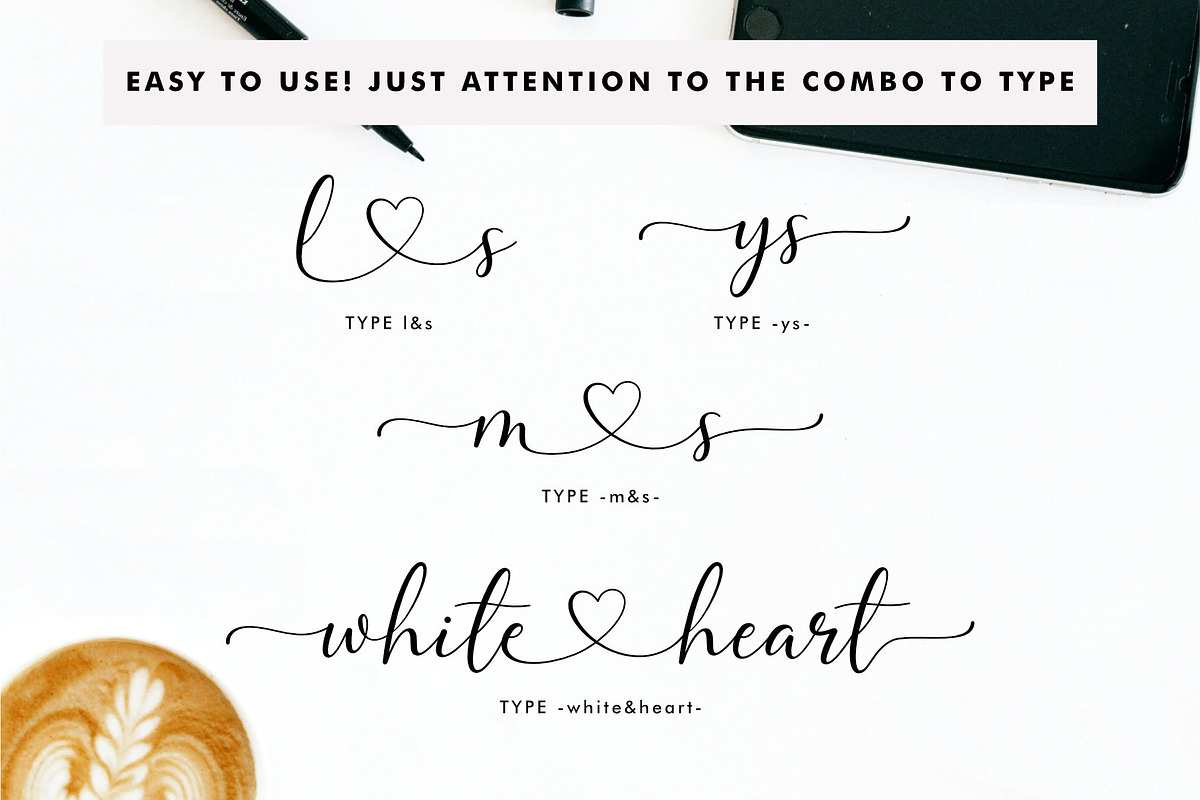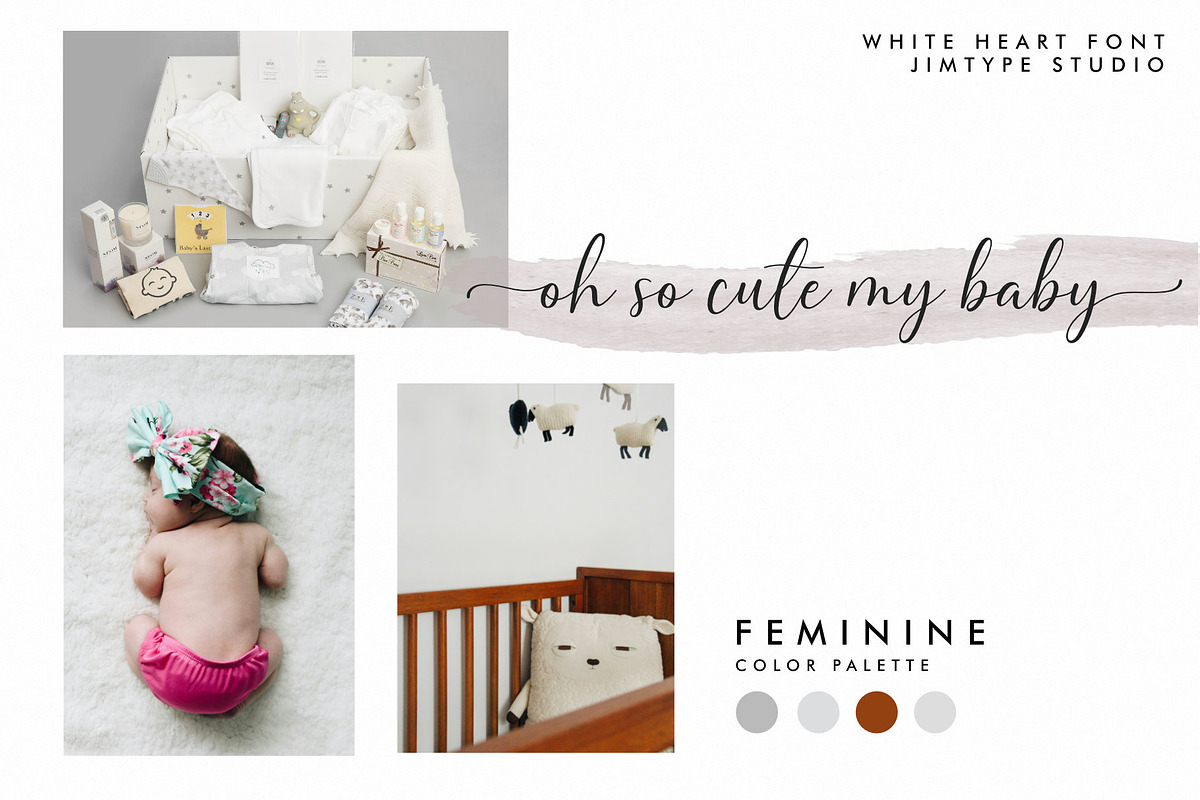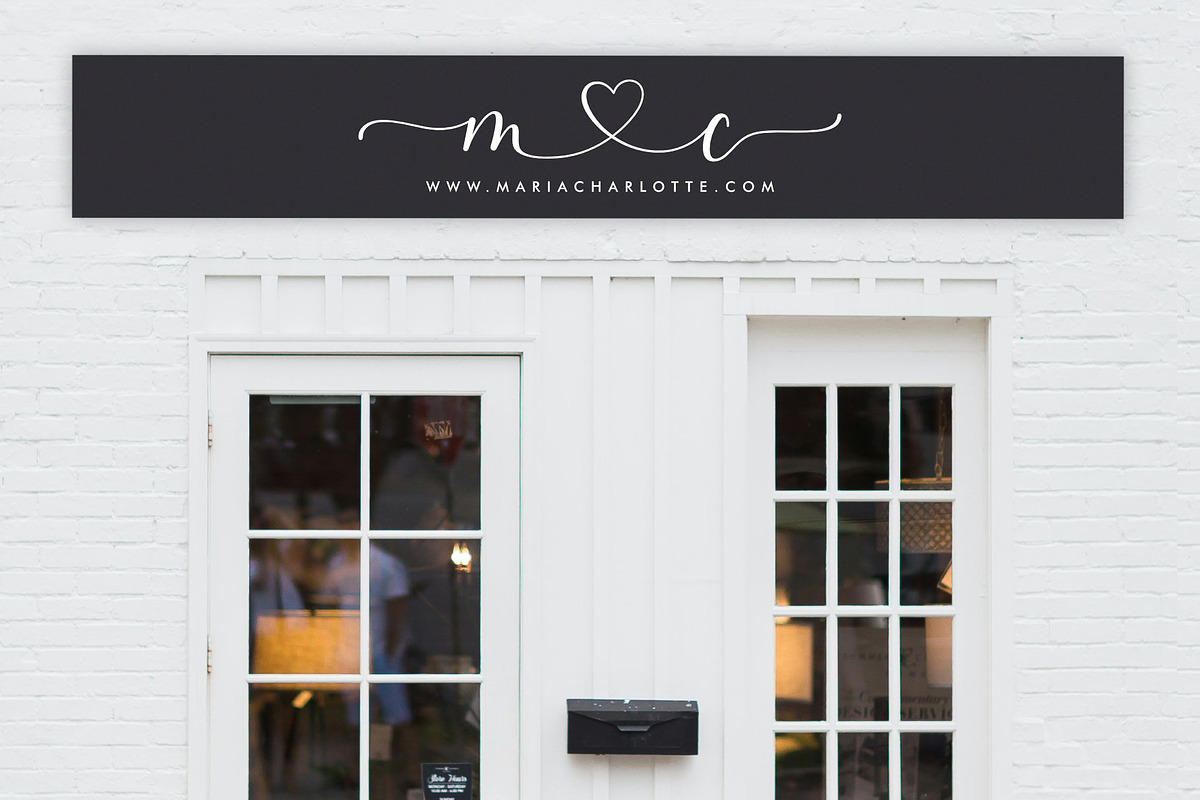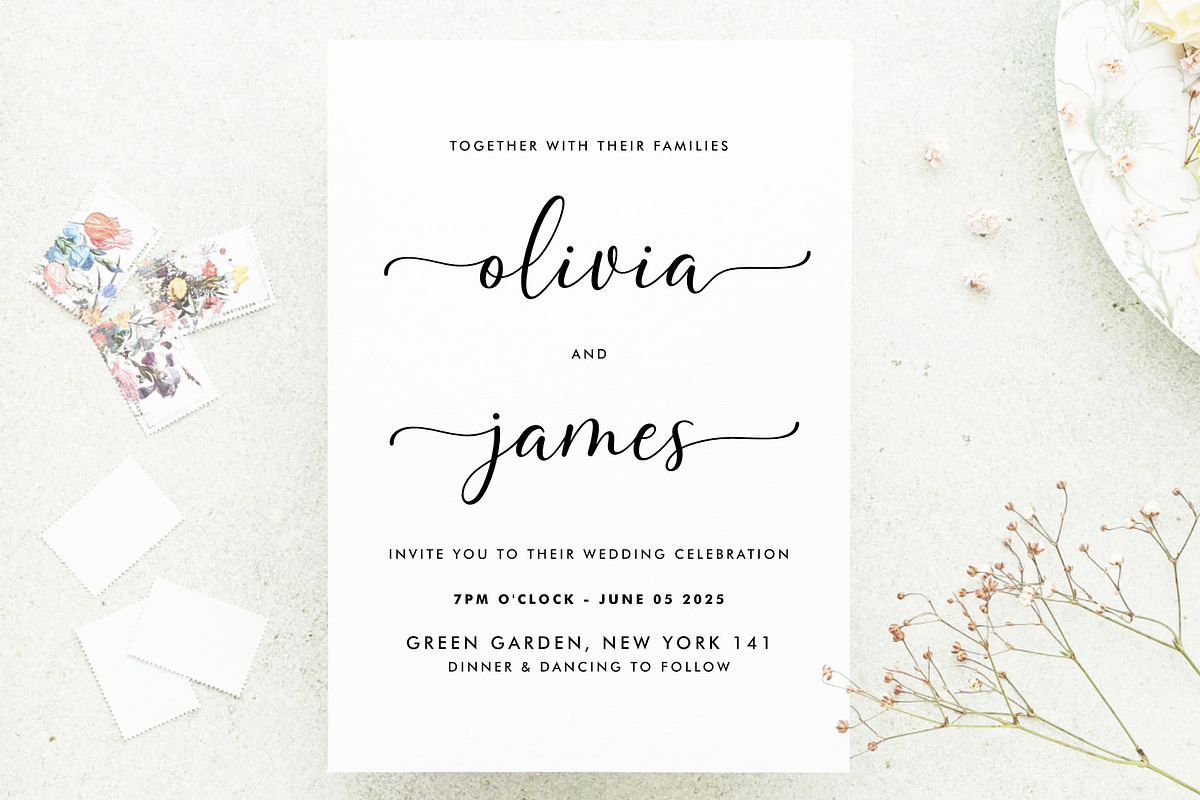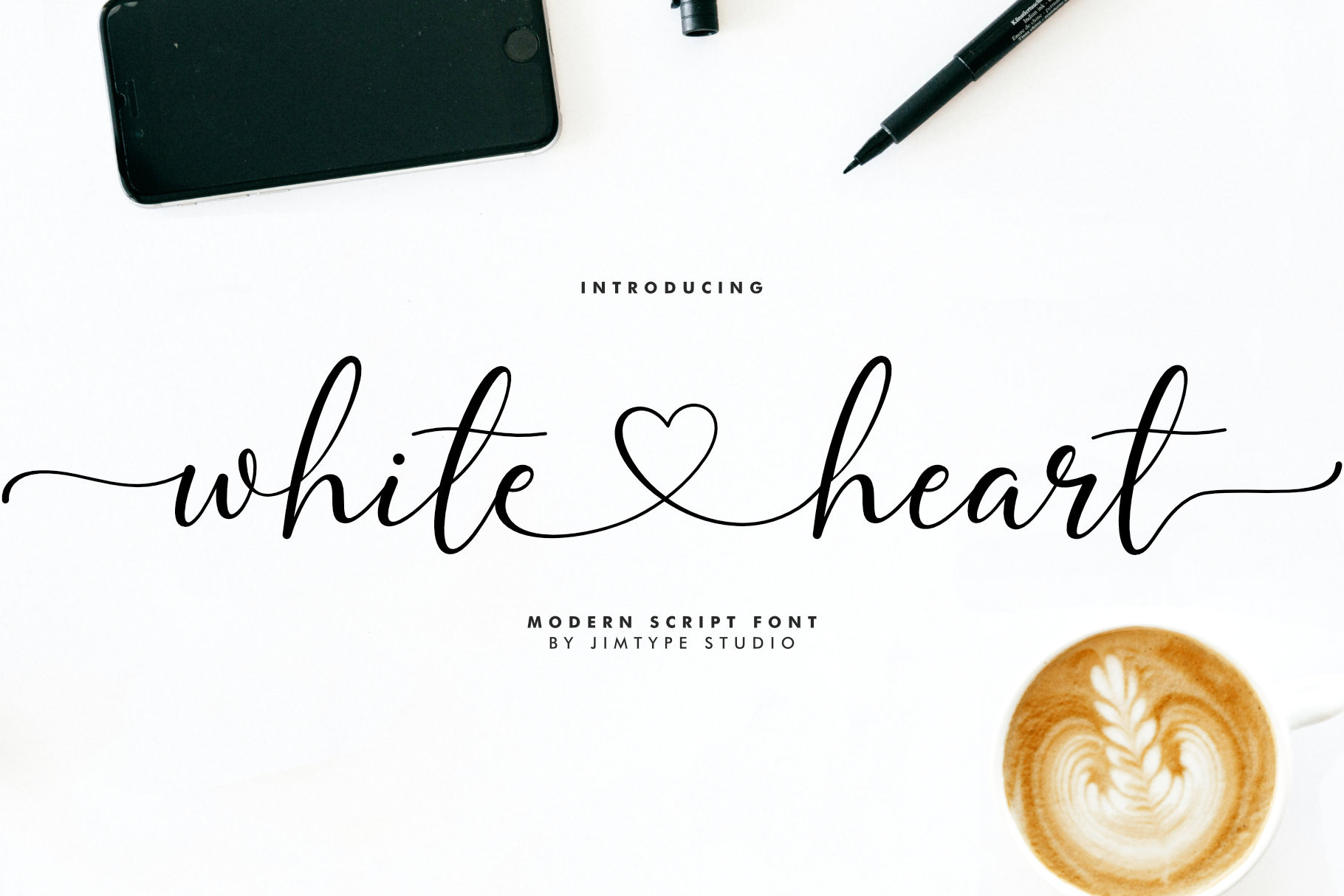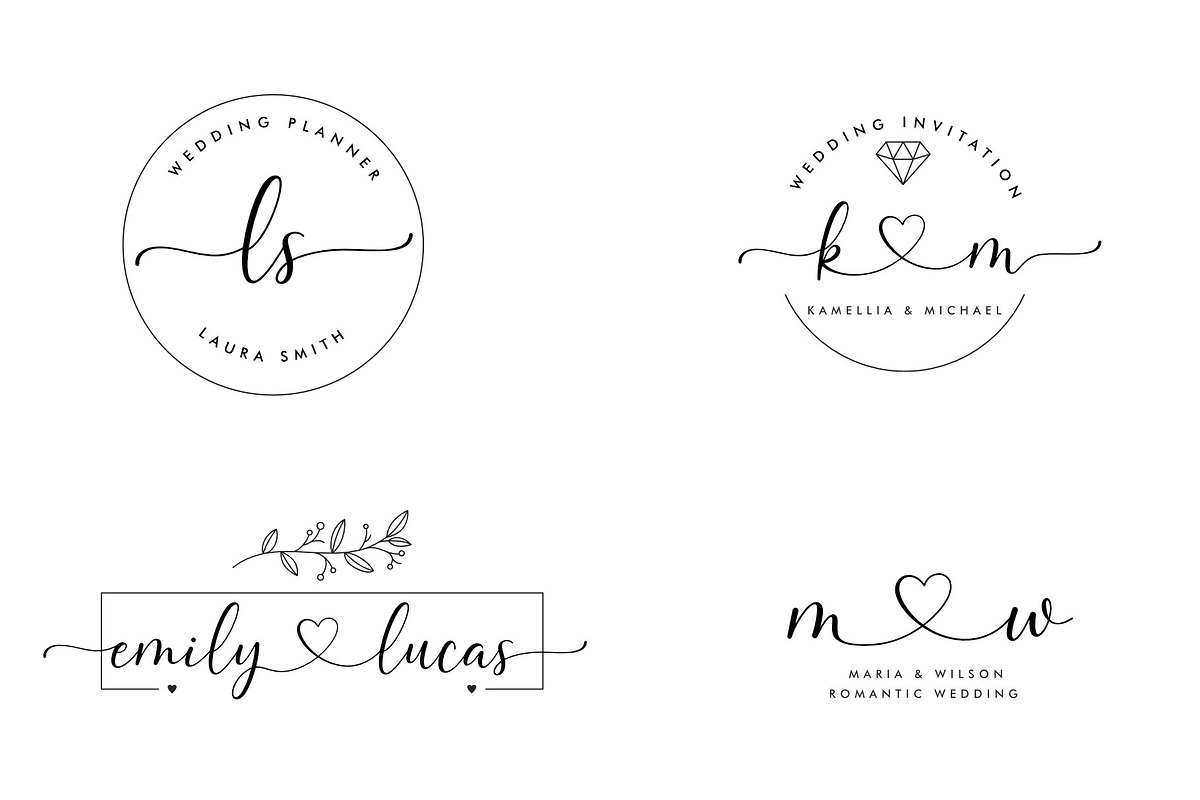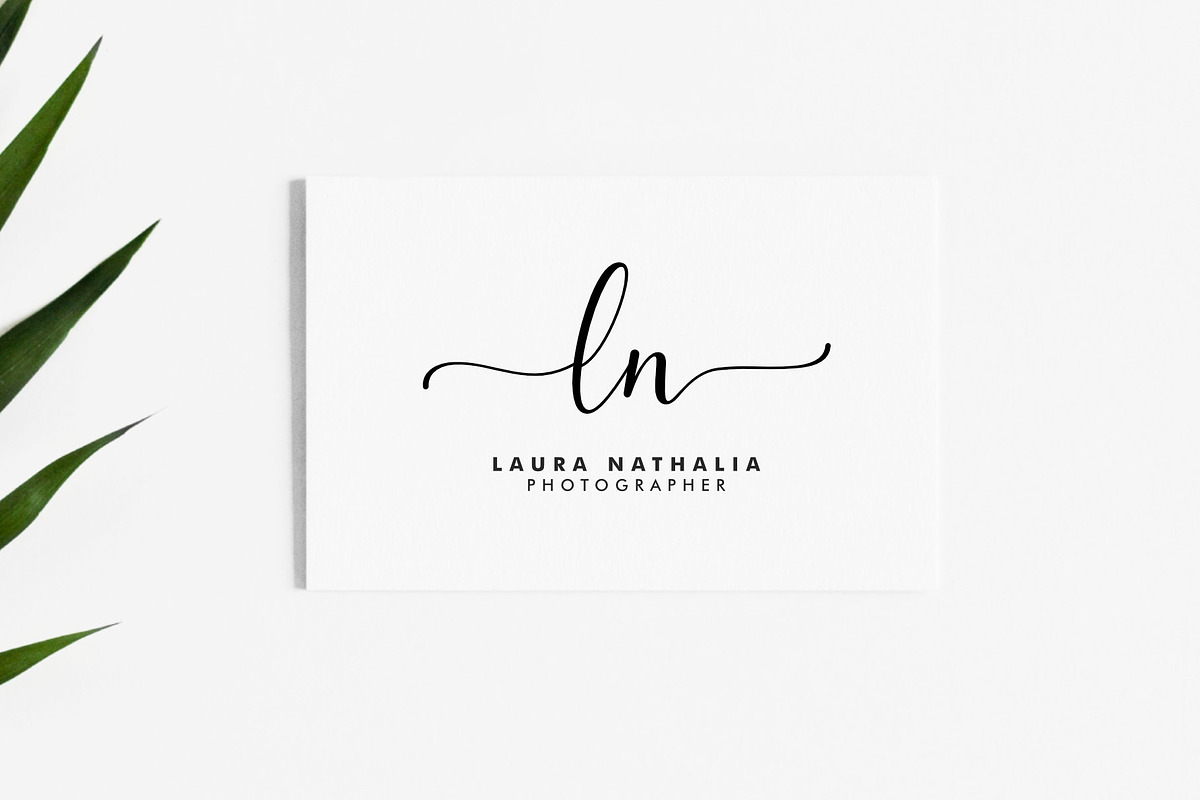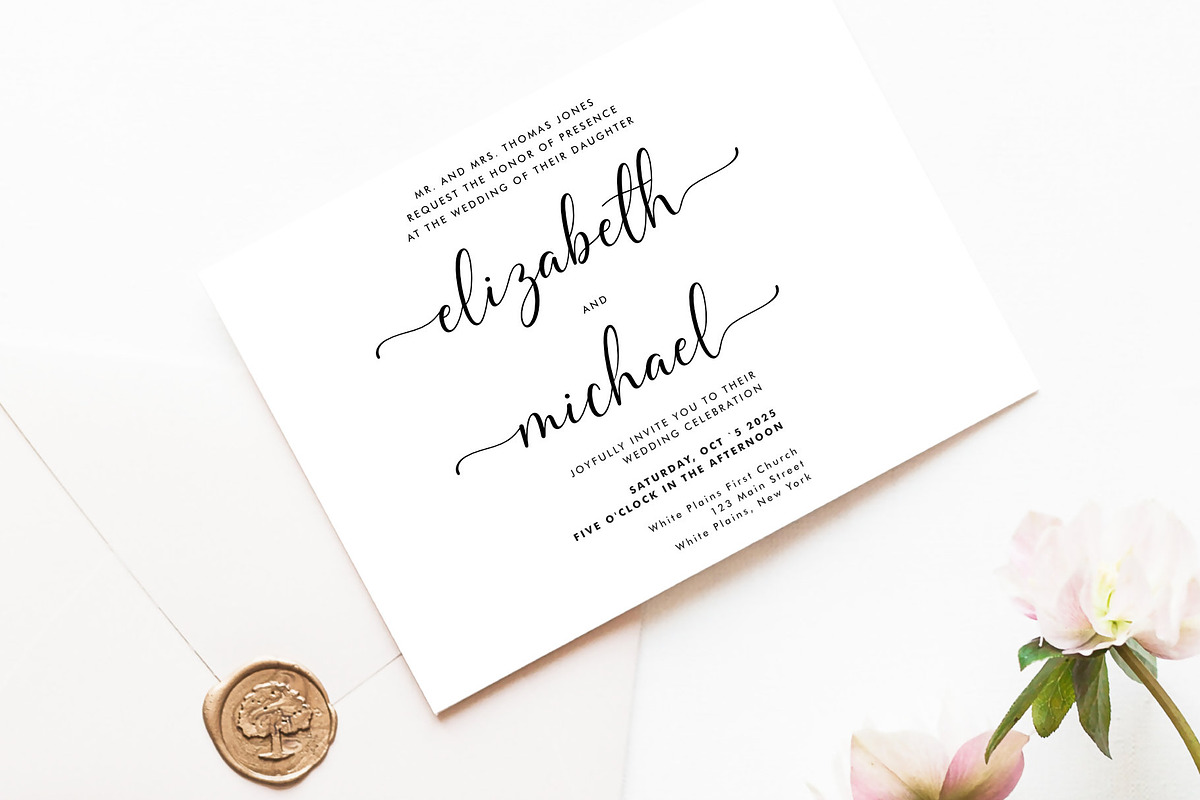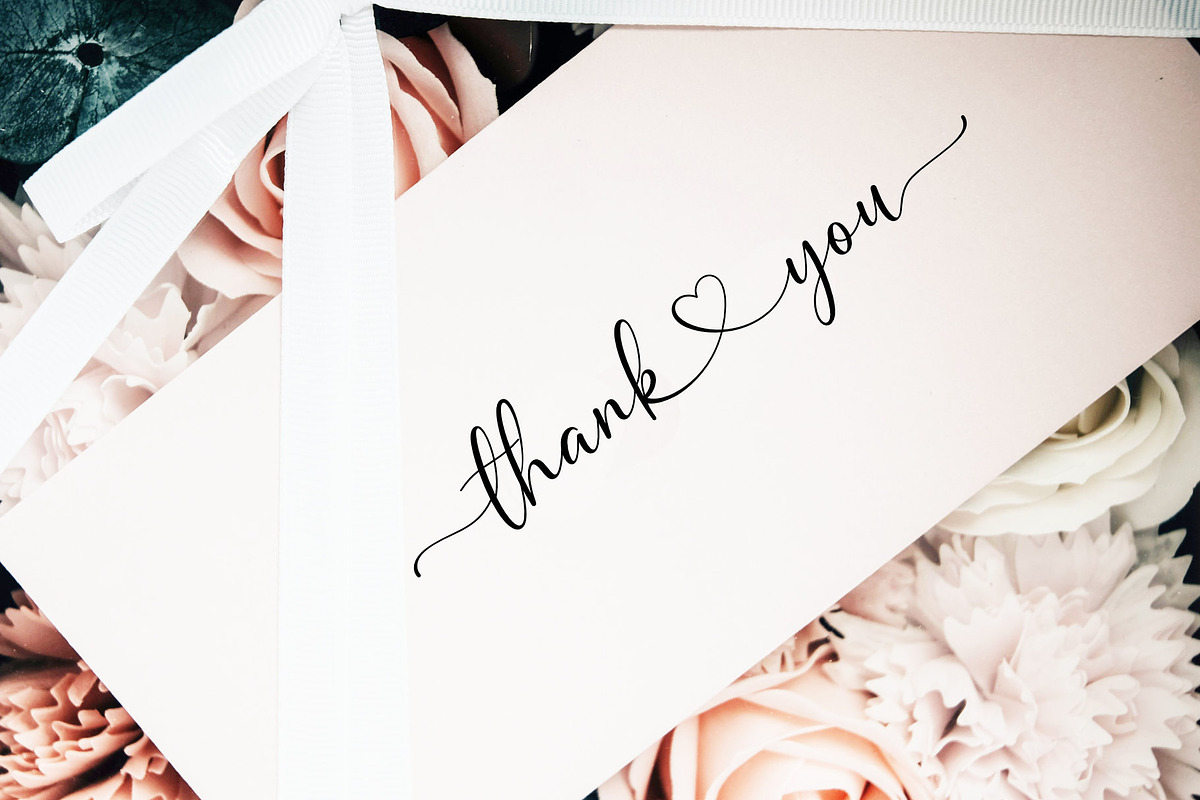
White Heart | Wedding Branding Font
Introducing White Heart is a modern, casual, and feminine handwritten script perfect for wedding invitations, calligraphy logos for branding, elegant websites, personalizing gifts, social media posts, and anything else your heart desires!
Included with White Heart is a full set of beginning and ending lowercase swashes, and heart connector swashes to create a realistic handwritten script look for your designs.